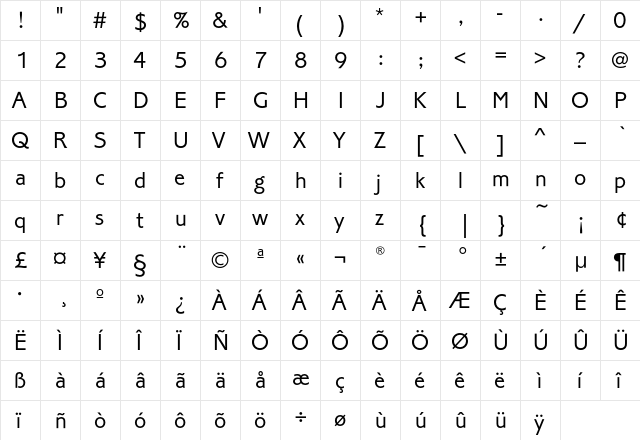
CorinthianEF Light
Design Context for CorinthianEF Typeface
CorinthianEF takes a measured approach to typography — its balanced proportions and neutral character make it a reliable workhorse for both digital and print work. Its slender proportions lend an understated elegance to any composition.
Pro Tip: Use CorinthianEF in both headline and body roles to test its range before committing to a single application.